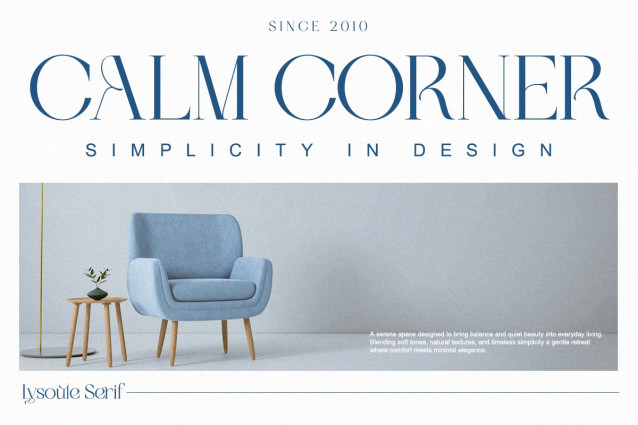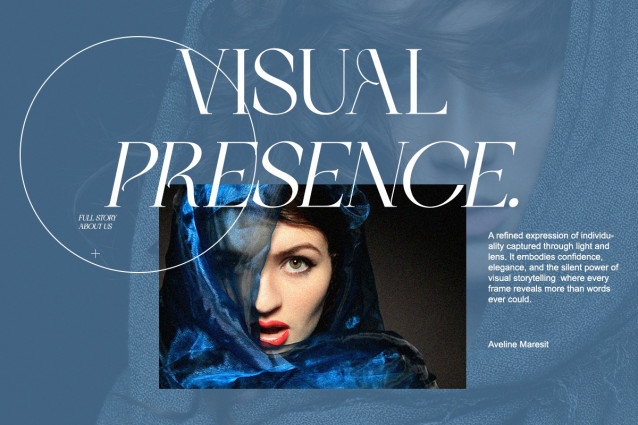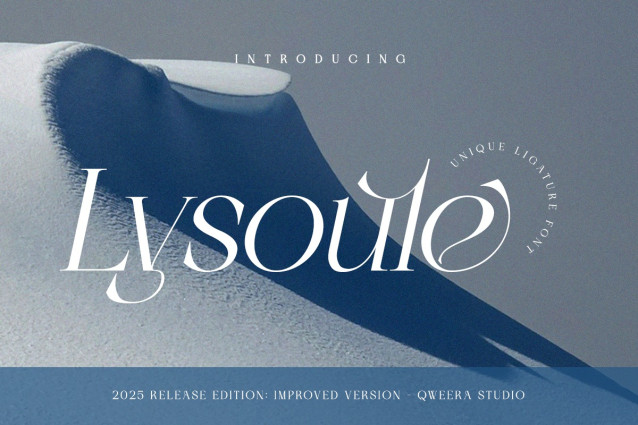
Lysoule Font
Lysoule Font is a minimal modern serif typeface with an elegant balance of classic charm and contemporary flair. Each curve and ligature flows naturally, creating a sophisticated visual rhythm that’s perfect for logos, editorials, and luxury branding. It’s not just a font — it’s an experience of timeless elegance, created for high-end visual identities.